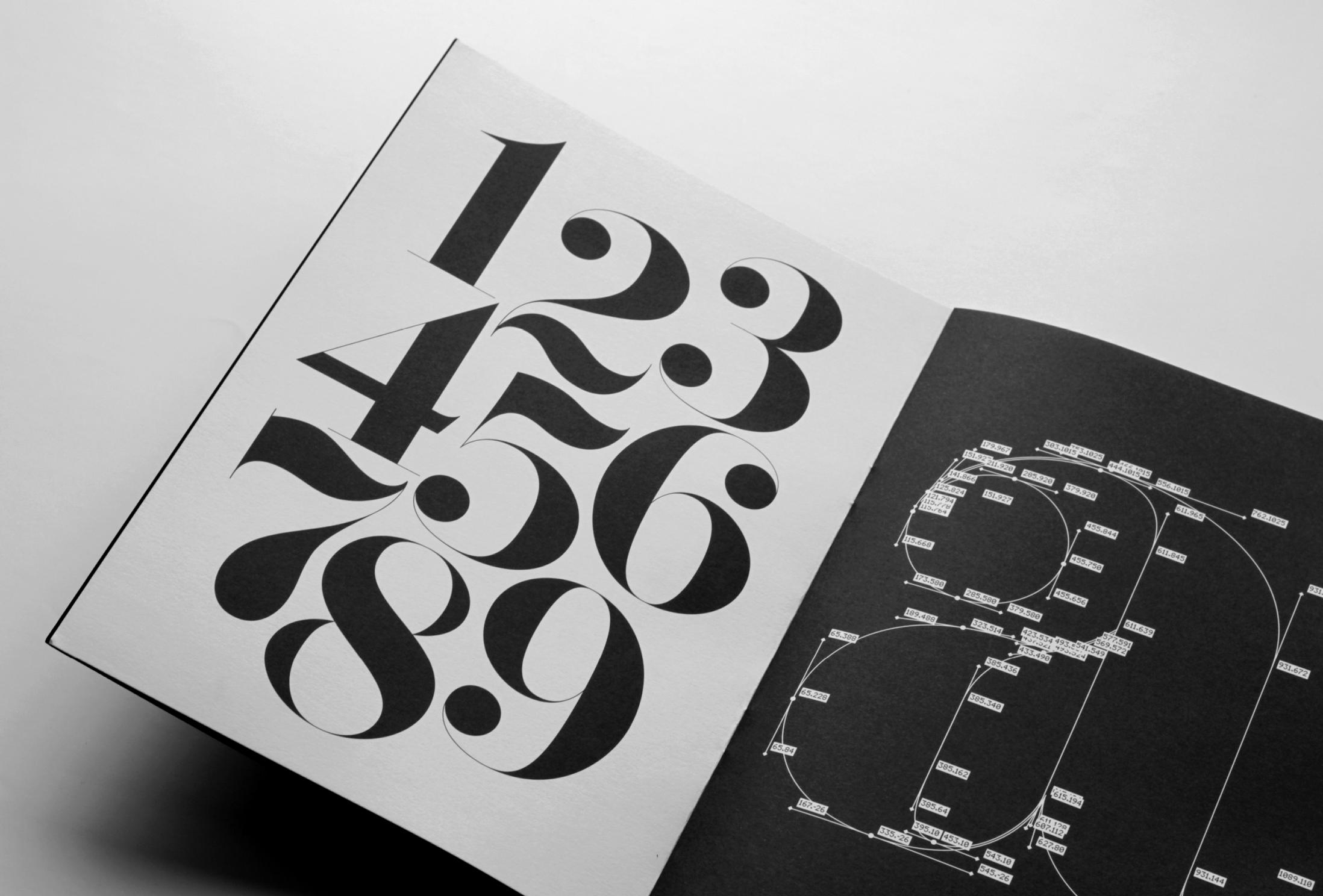
For many, this may be obvious, but the serif is the stroke given to the end of main horizontal and vertical lines of a character. In this article we'll discuss the difference between typefaces and fonts, how to combine them, and what pitfalls you should try to avoid.
Incredible What Is A Typeface In Graphic Design For Art Design, And styles of a typeface and is a graphic representation of text characters. Though trajan’s column rarely gets much use in modern graphic design, it signifies an important style in history.
A typeface is a design that defines the overall look of characters. In order to become a successful graphic artist or designer, one should be familiar with the role and value of typography in design. A font is a set of type sorts of unified design: Bold, italic, oblique are all typefaces.
50 Modern Serif Fonts Fonts Graphic Design Junction The letterforms that make up typefaces are created by type designers.
The font vs typeface debate is an infamous one in the graphic design community. In this article we'll discuss the difference between typefaces and fonts, how to combine them, and what pitfalls you should try to avoid. A typeface is a design for a set of printer or display font s, each for a set of characters, in a number of specific sizes. It is considered the world’s oldest typeface as its design comes from the lettering carved into trajan’s column in rome.
Typeface vs font a typeface is the name given to a collection of related fonts (which themselves the modern design world has a seemingly endless supply of typefaces to choose from. Most people use the word font and typeface interchangeably, but the difference is important for professionals trained in typography, type design, or graphic design. Although used interchangeably, a font is the specific typeface, including the. A font is a complete set of characters that share the same typeface, size, and styling. New Stylish Free Fonts For Designers Fonts Graphic Design.
In order to become a successful graphic artist or designer, one should be familiar with the role and value of typography in design. The arm of the letter ‘e.’. The design of a typeface is often classified as serif, sans serif, script or. A typeface is a particular design of type. New Fonts 2018 Free Download Fonts Graphic Design Junction.
It also refers to the process of working with text to create a legible, readable and visually appealing experience. Typically an alphabet plus all its accessory characters, of a single style and weight (and a single size, in the case of metal types). Serif, sans serif, script, display/decorative, and blackletter. Like in ‘w’ or ‘k.’. 50 Modern Serif Fonts Fonts Graphic Design Junction.
Since outline fonts such as truetype and type 1 are scalable, a computer typeface designer must anticipate the possibility of the design being scaled through a range of sizes. The letterforms that make up typefaces are created by type designers. Helvetica is a type family. Most people use the word font and typeface interchangeably, but the difference is important for professionals trained in typography, type design, or graphic design. Use Fewer Fonts in Your Graphic Designs.
Though trajan’s column rarely gets much use in modern graphic design, it signifies an important style in history. Fonts are about the width and height of a typeface and refer to its style. Designers choose appropriate typefaces and use elements of design including hierarchy, alignment, spacing and more to convey their message. However, with the help of my website i hope that i can save you some time in learning everything there is to know about the. Latest Free Fonts For Graphic Designers Fonts Graphic Design Junction.
It is considered the world’s oldest typeface as its design comes from the lettering carved into trajan’s column in rome. For example, ariel is a typeface. However, with the help of my website i hope that i can save you some time in learning everything there is to know about the. “typography exists to honor content.”. Graphic Design Font Download.
Fonts are about the width and height of a typeface and refer to its style. Typeface is the name given to a specific design of lettering. A font is a complete set of characters that share the same typeface, size, and styling. You also learned about type families, a concept formalized in the early twentieth century to include styles. 35 Amazing Fonts Typography Designs for Design Inspiration.
Assorted words are used in web and graphic design to portray brand. And styles of a typeface and is a graphic representation of text characters. The classic roman square capitals are even older than that, as examples have been found dating as early as 43 bce. A font is a complete set of characters that share the same typeface, size, and styling. Inspiring Font Typography 70+ Creative Font Typography Designs.
Typeface Is The Name Given To A Specific Design Of Lettering.
A typeface is a design for a set of printer or display font s, each for a set of characters, in a number of specific sizes. In order to become a successful graphic artist or designer, one should be familiar with the role and value of typography in design. A font is a complete set of characters that share the same typeface, size, and styling. A typeface consists of all the characters (letters) in one font family.